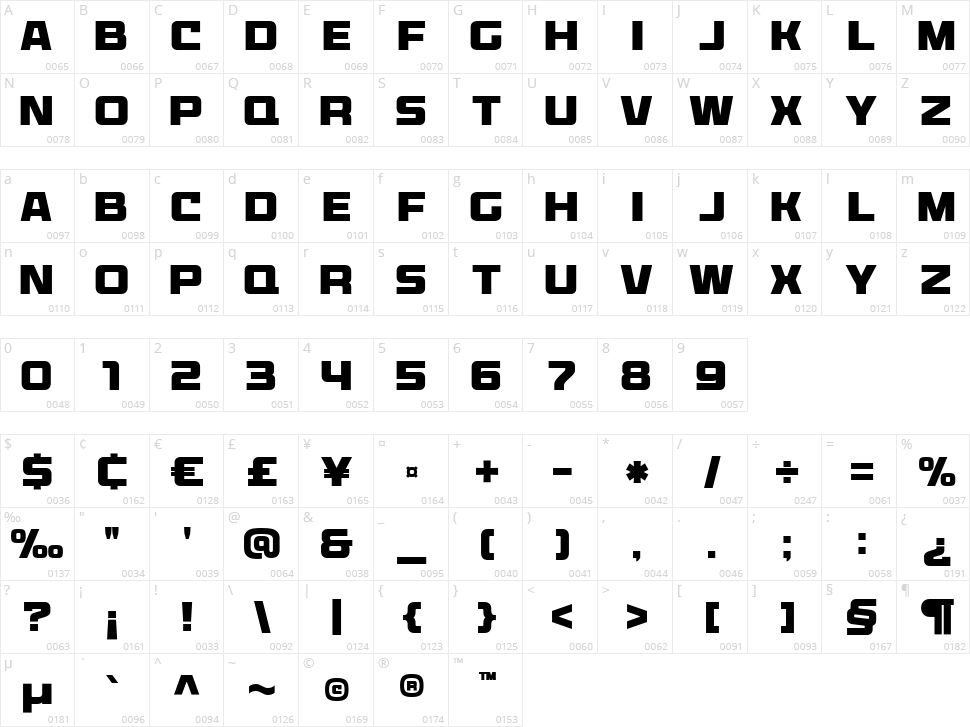
Microsport
Bring strong atmosphere in modern style for your projects. This font perfect for headline, general advertising, packaging, sport logo / branding and more.